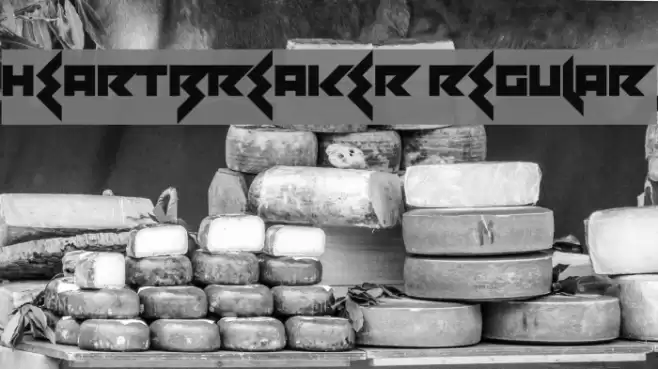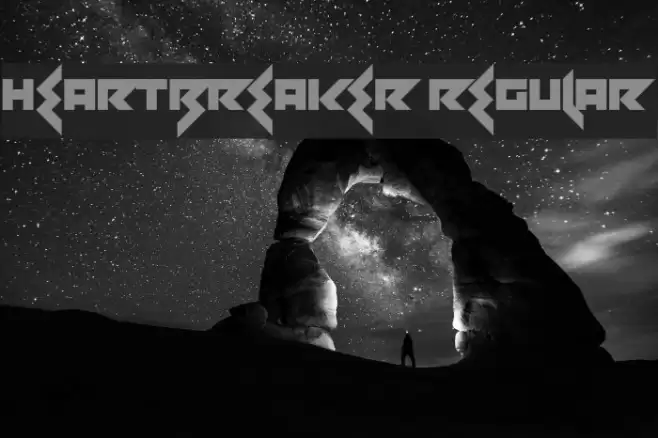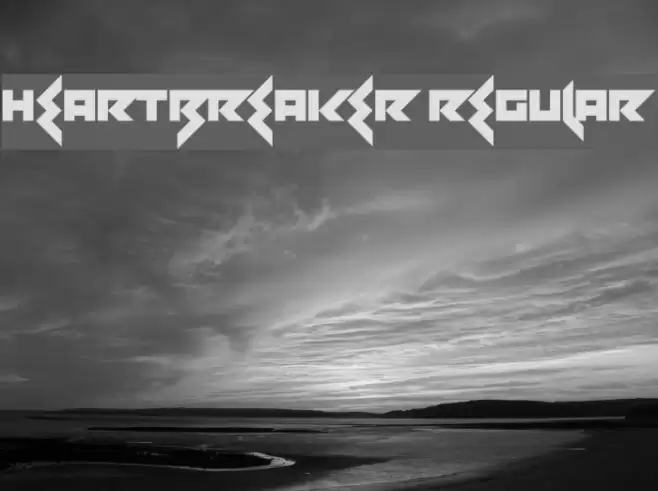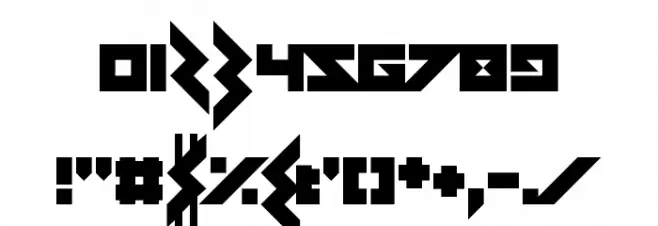
Heartbreaker Regular Font
Heartbreaker Regular Description
This font features a bold, geometric design with sharp angles and a futuristic aesthetic. The characters are constructed with thick lines and angular edges, creating a striking and aggressive appearance. The uppercase and lowercase letters are consistent in style, maintaining the same angular and blocky form. The numerals and special characters follow the same design principles, ensuring uniformity across the typeface. This font's unique style makes it ideal for projects that require a modern and edgy look.
A bold, geometric font with sharp angles and a futuristic style from Uncategorized fonts.
- Proposed Projects: Perfect for sci-fi themed designs, video game titles, posters, and branding that requires a modern, edgy look.